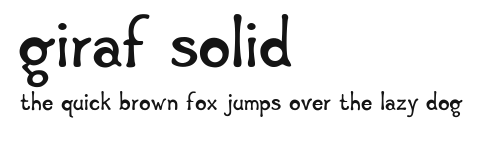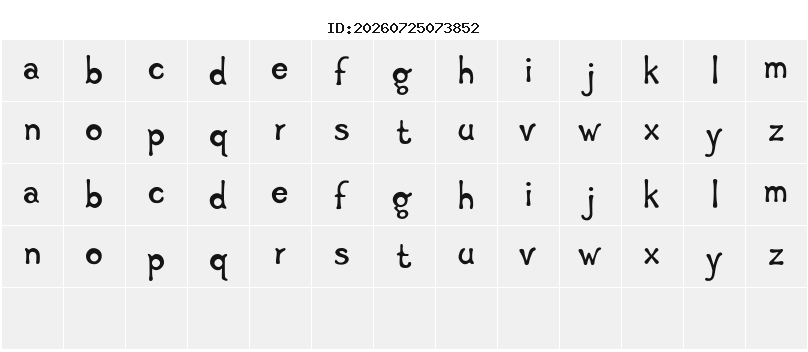
Giraf Solid Preview
• Font Name: Giraf Solid
• Full Font Name: Giraf SolidRegular
• PostScript Name: GirafSolid
About Giraf Solid.ttf
Giraf Solid.ttf is a modern, elegant sans-serif font designed for ultimate readability and visual harmony. Perfect for branding, headlines, web design, and print materials.